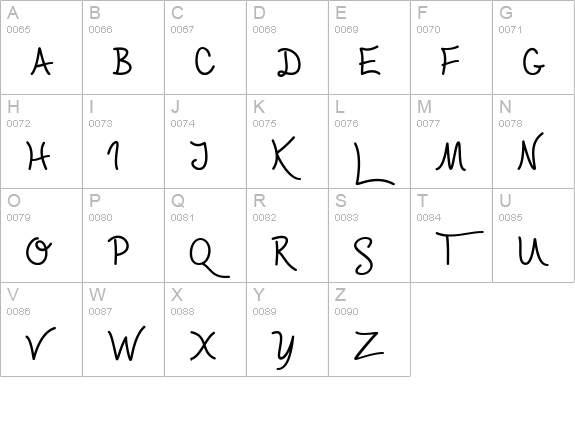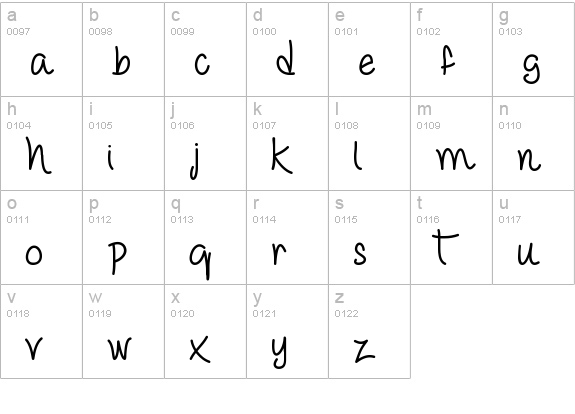
Love & Trust Font Details
Introducing Love & Trust font, a captivating and expressive typeface that beautifully combines elegance with a touch of playfulness. This font is perfect for adding a romantic and heartfelt touch to any design project. With its graceful curves and carefully crafted letterforms, Love & Trust font instantly captures the essence of love, trust, and authenticity. But what makes Love & Trust font truly stand out is its incredible versatility. Whether you're designing wedding invitations, love letters, greeting cards, or branding materials, this font effortlessly adapts to any style or theme. Its timeless and sophisticated appearance ensures that your message will be conveyed with utmost elegance and sincerity. And the best part? Love & Trust font is completely free! That's right, this exquisite font is freely available to download at FontsMarket.com. We believe in spreading love and trust, and what better way to do so than by offering this stunning font to designers, creatives, and enthusiasts around the world, without any cost. So, go ahead and download Love & Trust font today. Let your imagination run wild as you infuse your designs with the power of love and trust. Whether you're creating a personal project or working on a professional endeavor, this font will undoubtedly elevate your work to new heights. Embrace the beauty and charm of Love & Trust font and let it inspire you to create designs that resonate with love, trust, and authenticity.